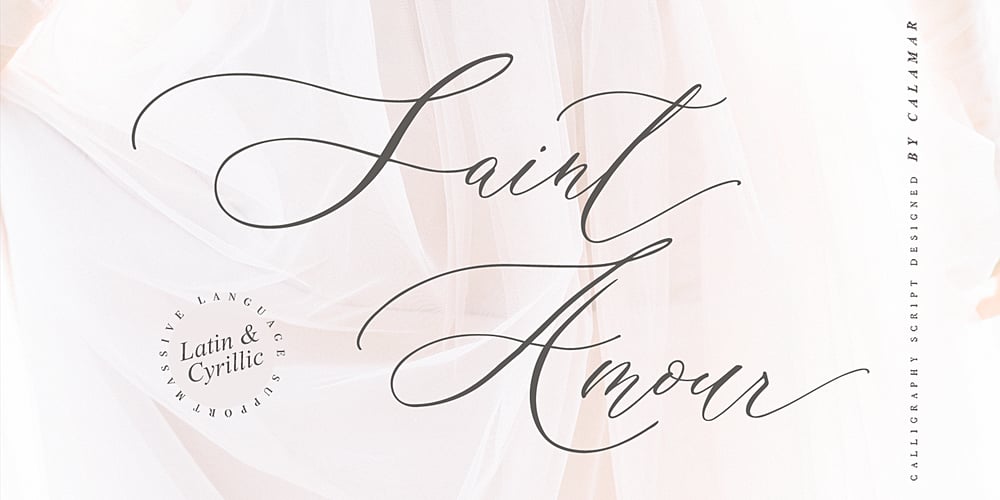
Saint Amour Font Family was designed by Oksana Petrenko and published by Calamar. Saint Amour contains 1 styles and family package options. Saint Amour Script is an elegant calligraphy font that will look awesome on wedding and event stationery, logos and branding materials, cards and so on. Saint Amour Script includes Uppercase and Lowercase Cyrillic and Latin Basic Characters, Numbers and Punctuation. Also the font contains ligatures and stylistic alternates to perfectly re-create natural calligraphy. Saint Amour Script supports Latin & Cyrillic alphabets giving a huge range of language support.